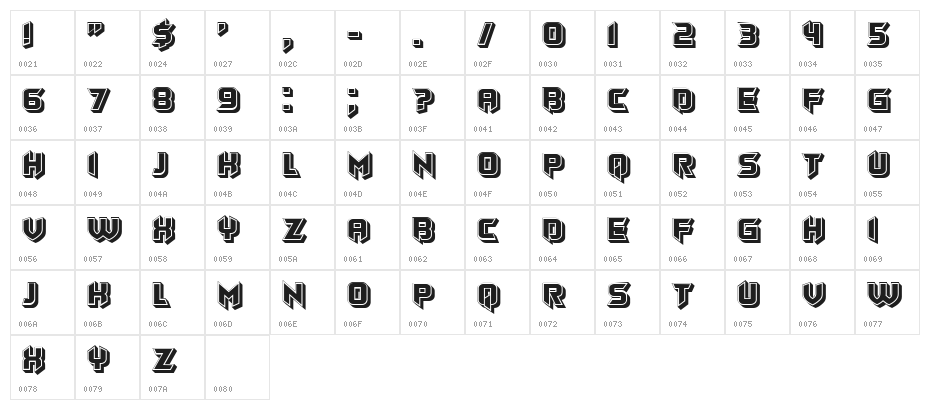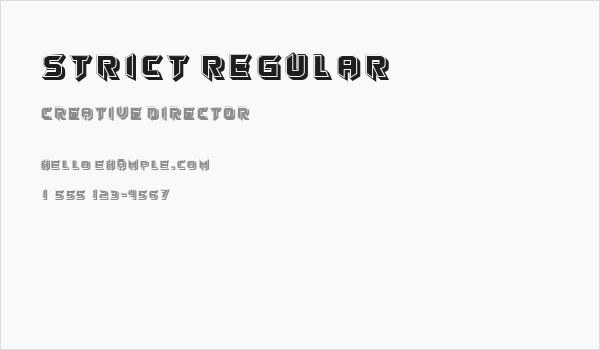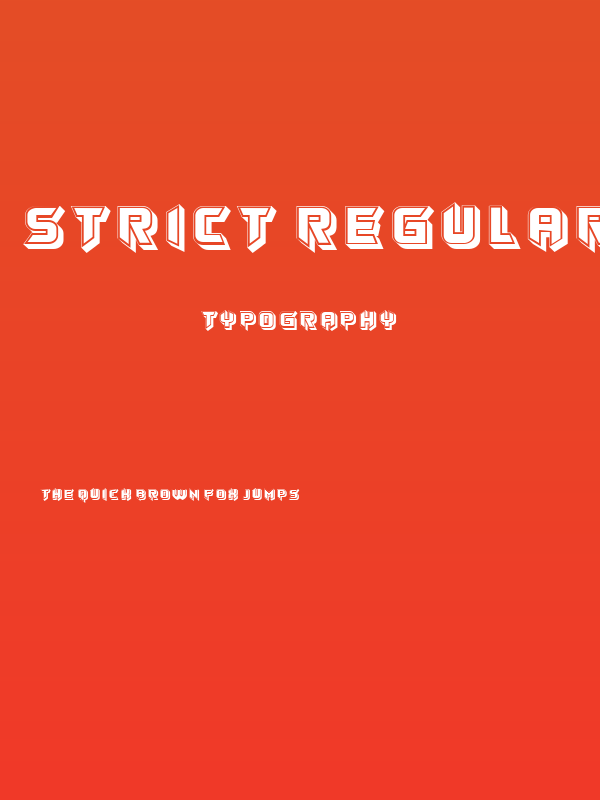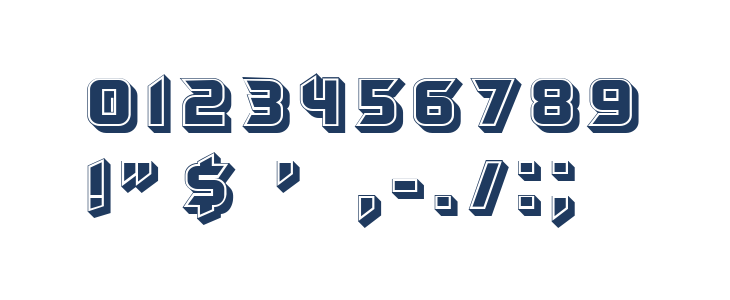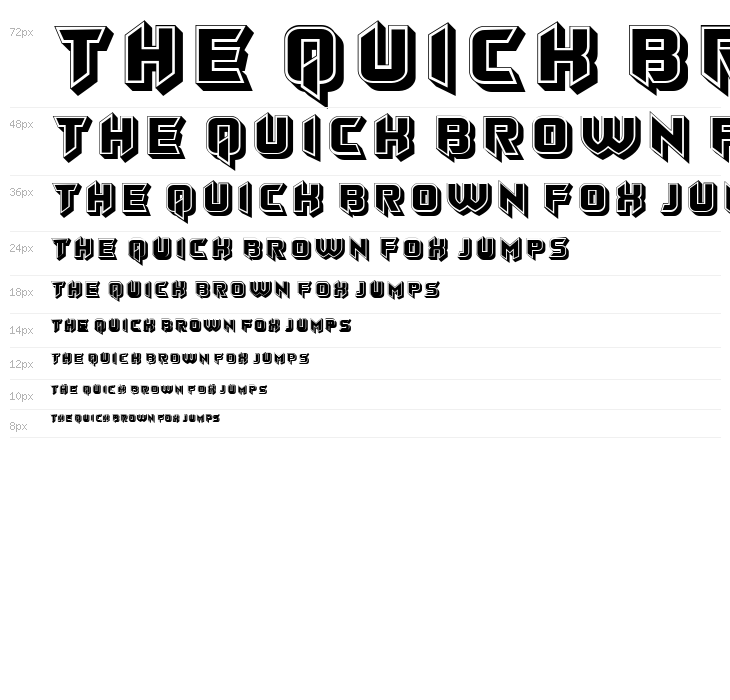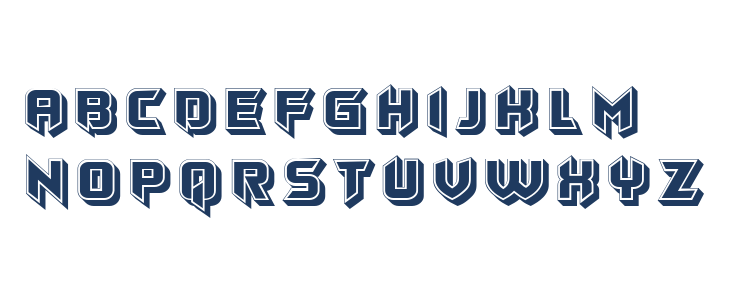
Strict Regular Font
Strict Regular Description
This font features a bold, geometric style with a three-dimensional effect created by shadowed edges. The characters are uppercase and have a strong, impactful presence, making them ideal for attention-grabbing designs. The sharp angles and clean lines give it a modern and futuristic look, while the shadowing adds depth and dimension. The font is consistent in its weight and width, providing a uniform appearance across all characters. It is particularly suited for display purposes where a bold statement is needed.
| Proposed Projects | This font is perfect for posters, logos, video game titles, and any project requiring a strong visual impact. |